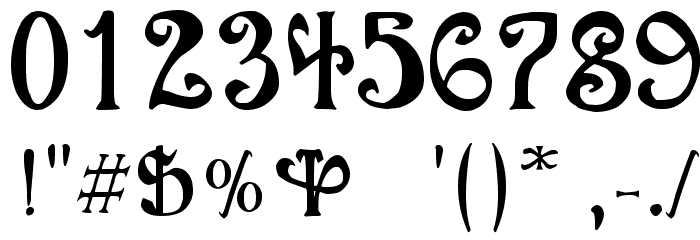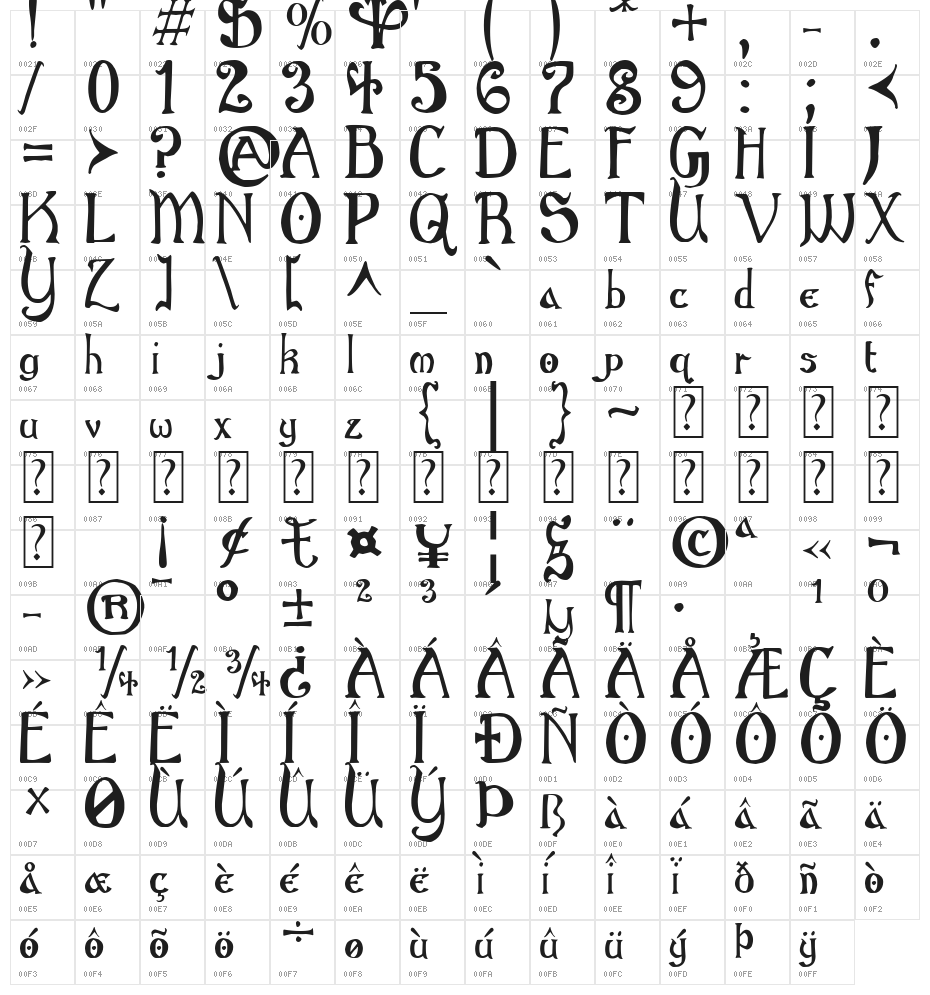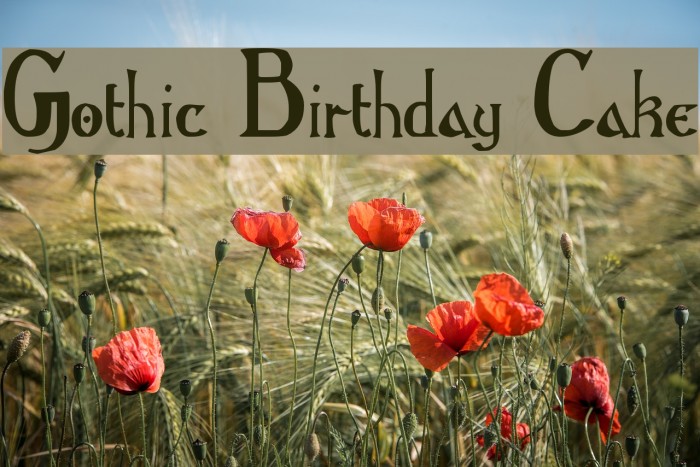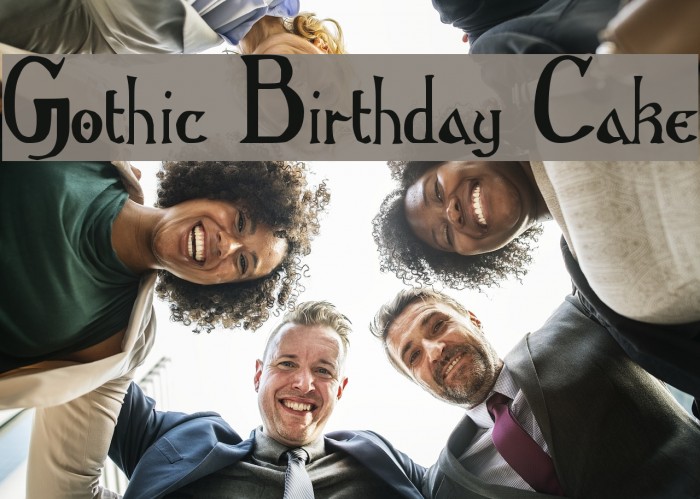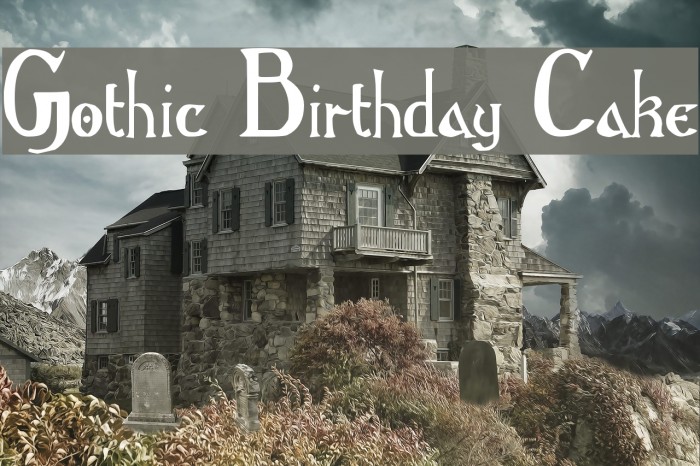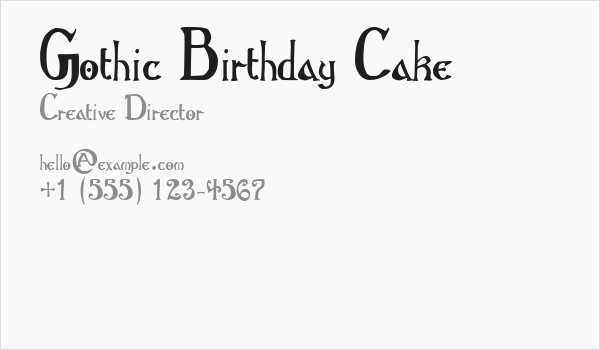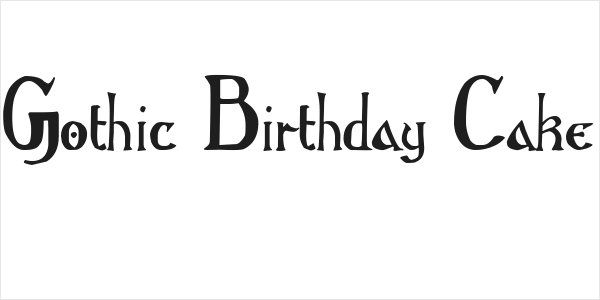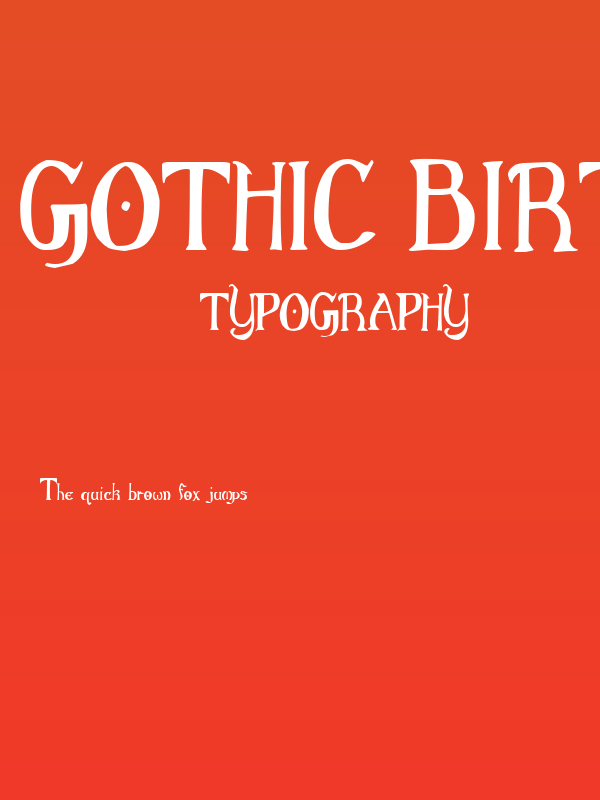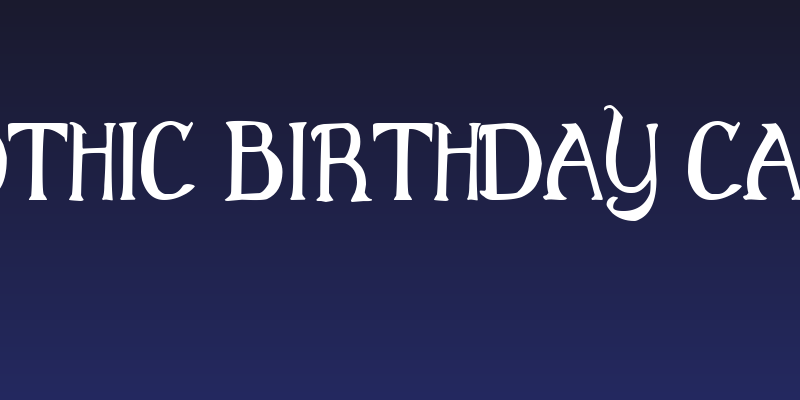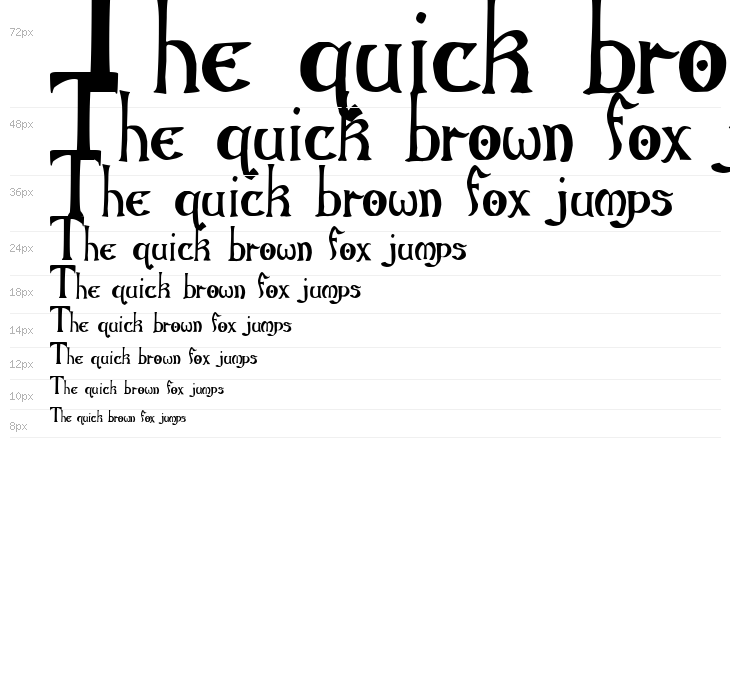
Gothic Birthday Cake Font
Gothic Birthday Cake Description
This font features a distinctive Gothic style with a playful twist, characterized by its ornate and decorative letterforms. The uppercase letters are tall and narrow, with sharp, angular serifs that give them a dramatic flair. The lowercase letters maintain a similar aesthetic, with unique curves and flourishes that add to the font's whimsical nature. The numerals are bold and consistent with the overall style, featuring intricate details that enhance their visual appeal. Special characters are equally ornate, fitting seamlessly into the font's cohesive design. This font's intricate design and high contrast make it stand out, perfect for creating eye-catching headlines or artistic projects.
| Use Case | Headlines, Logos, Artistic projects |
| Proposed Projects | Ideal for creative projects such as invitations, posters, and branding that require a bold, artistic touch. |